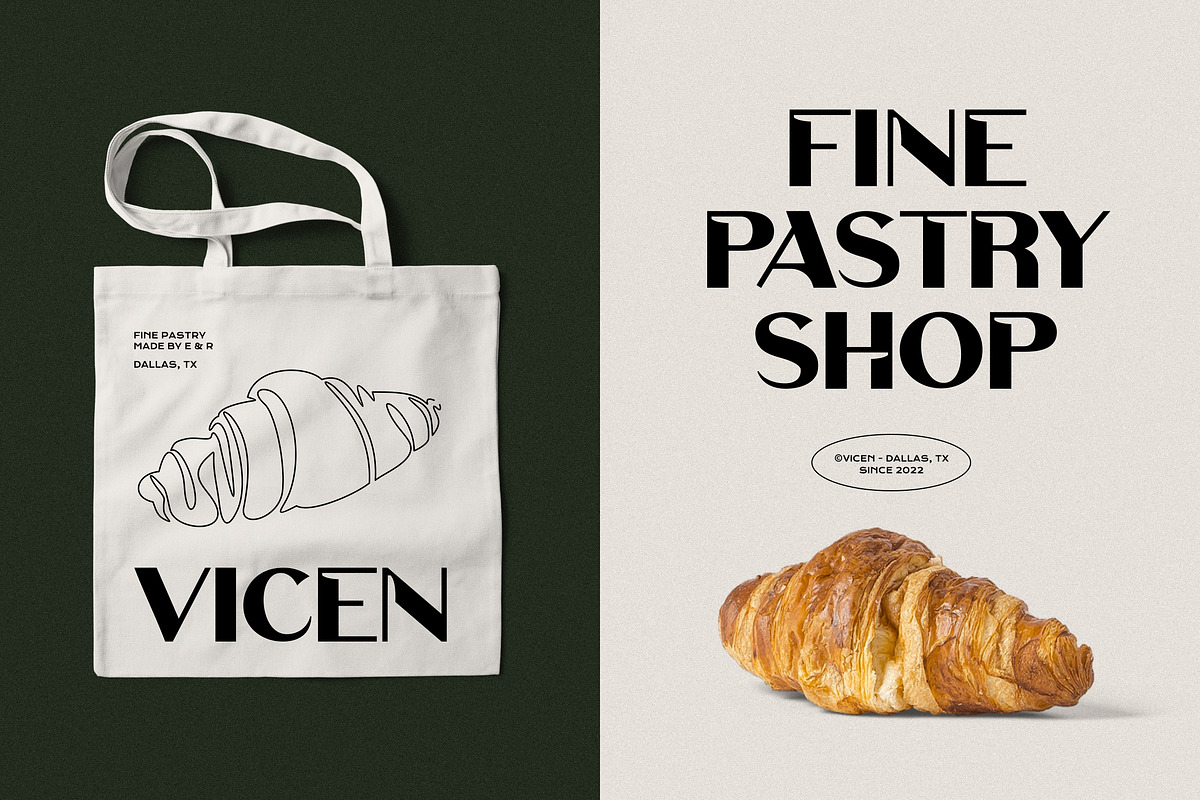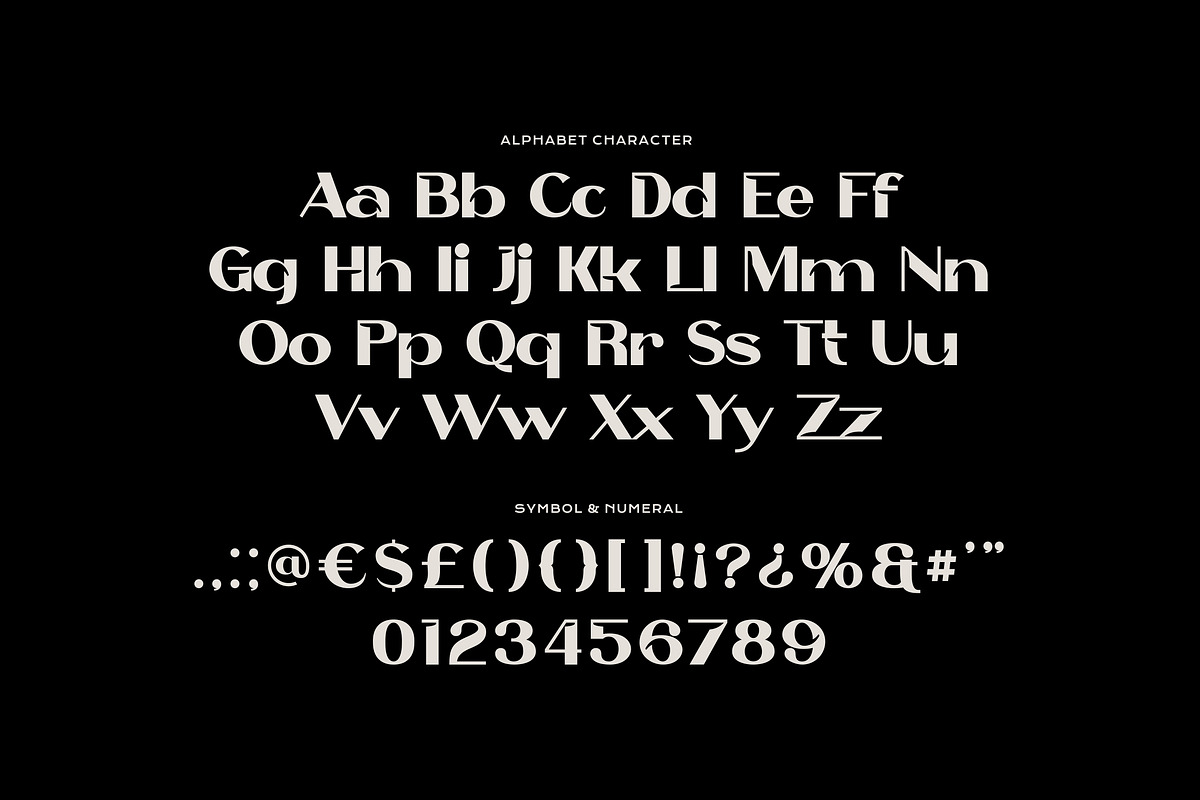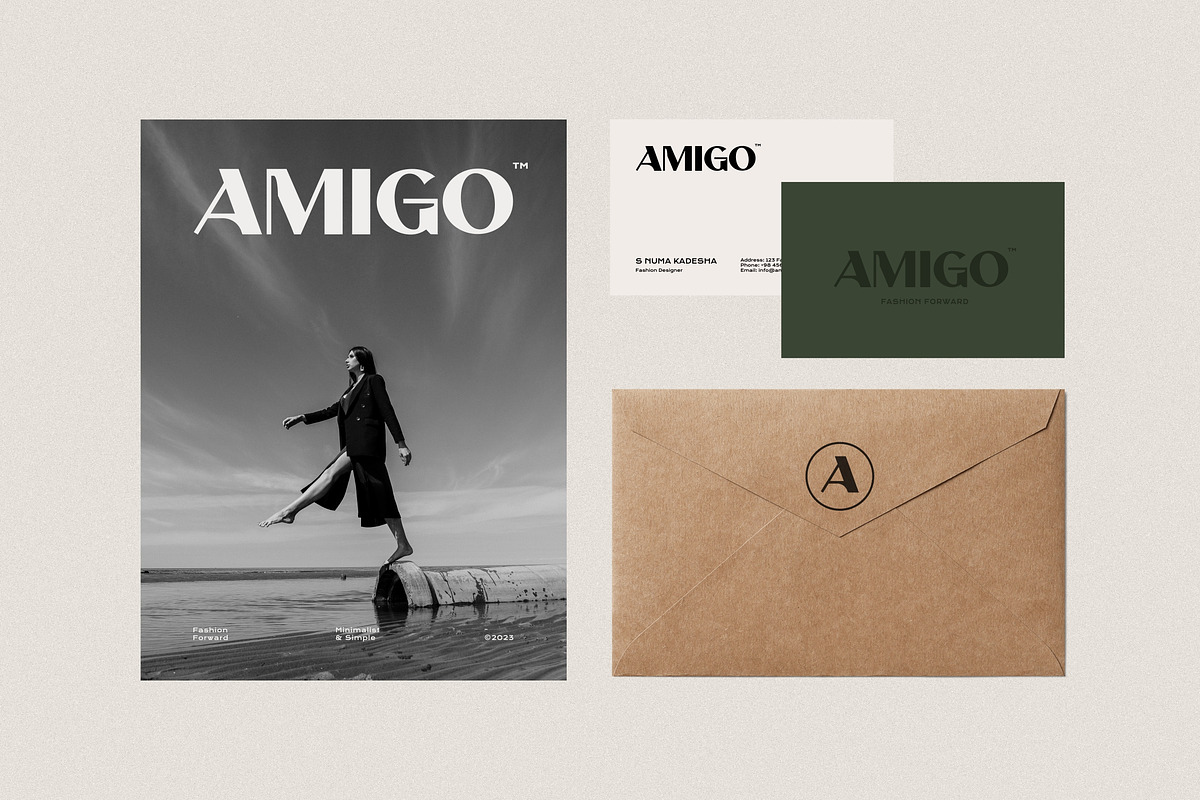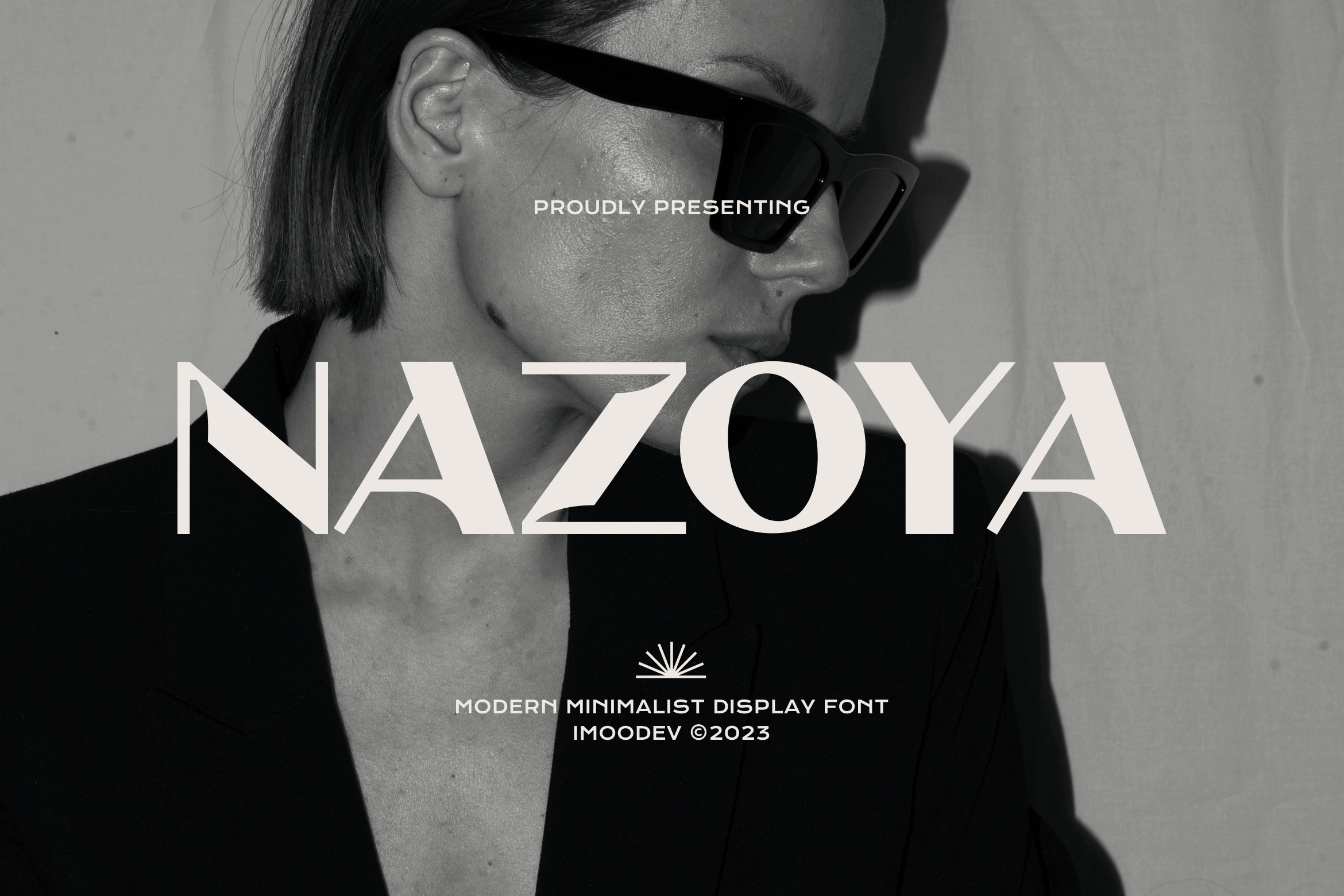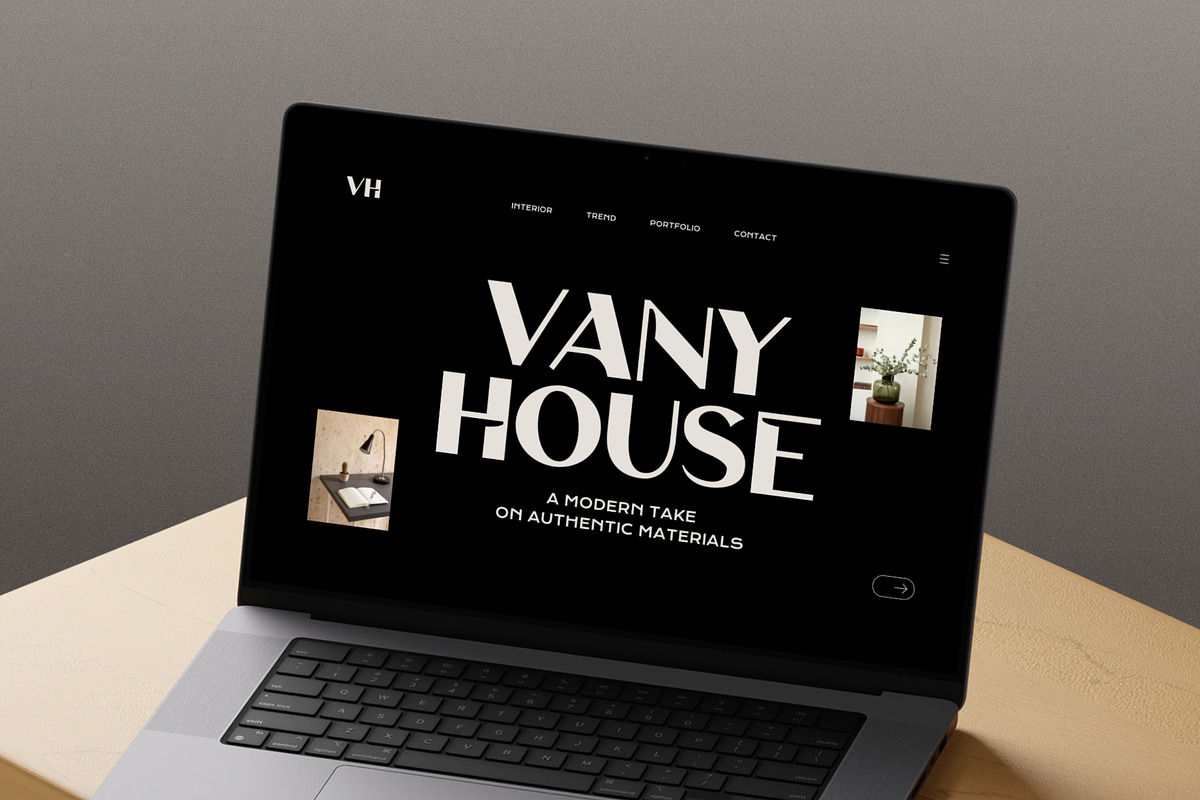
Nazoya - Elegant Display Font
Nazoya - a elegant display font with simple, clean, and visual elegance specially designed for elegant-themed projects, perfectly suitable for creating simple, clean, lifestyle design.
Suitable for a wide variety of projects such as a display font for headings, logo fonts, invitations, branding, book covers, magazine layouts, card, product packaging, product mockup, mugs, posters, labels, editorials, and any type of advertising purpose.